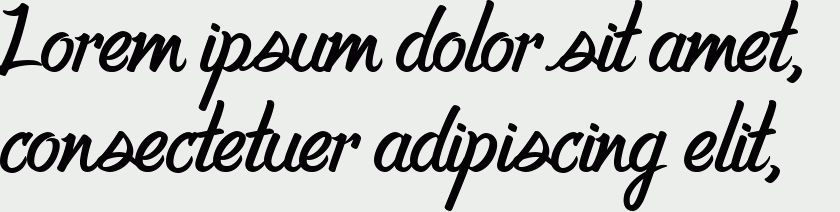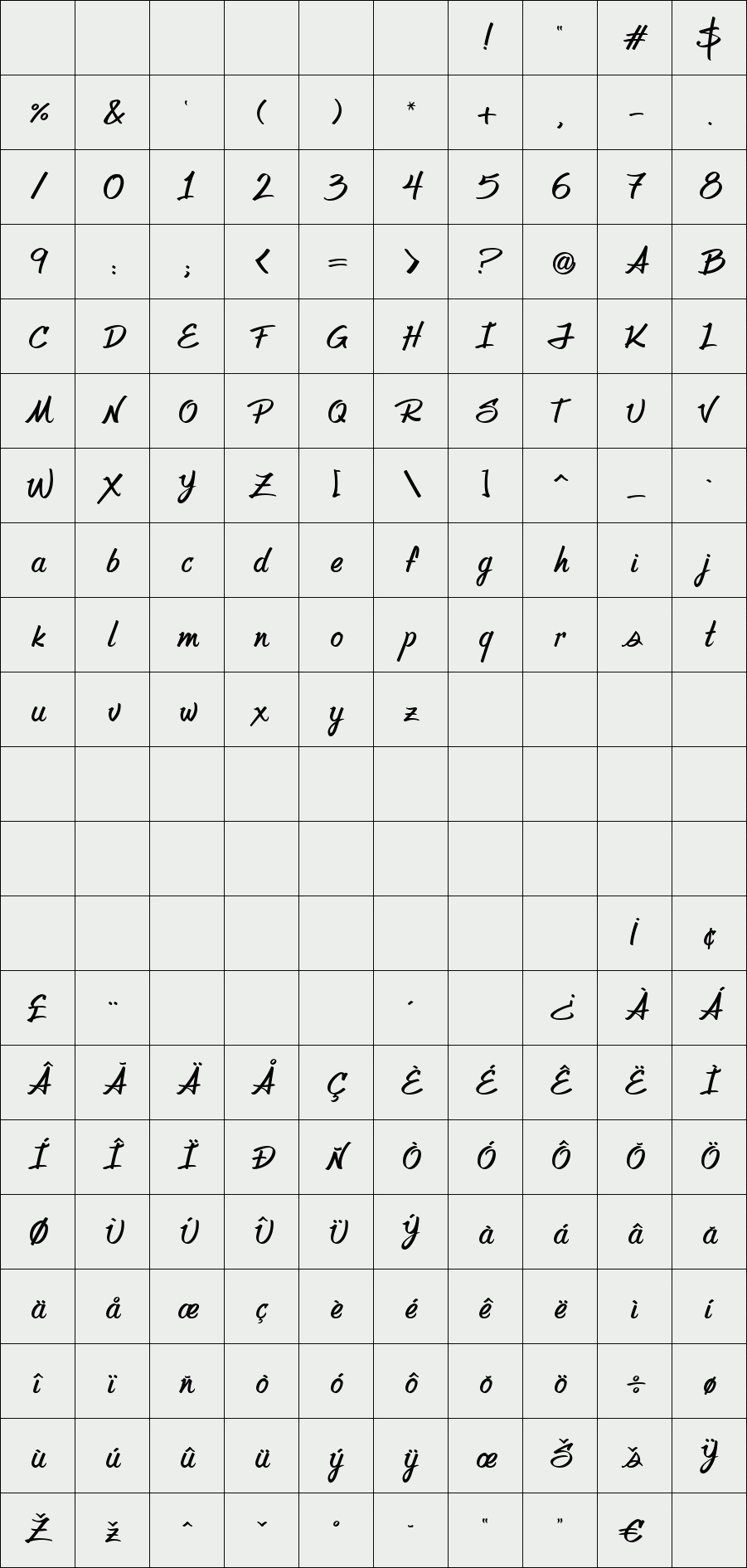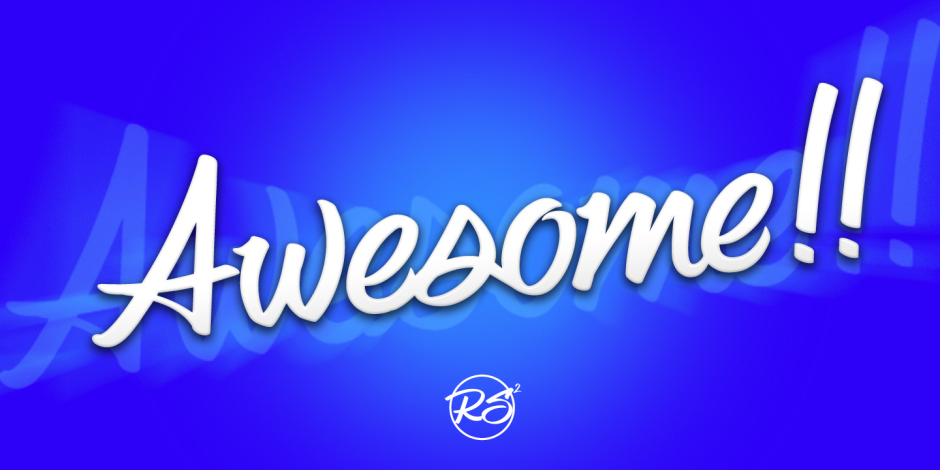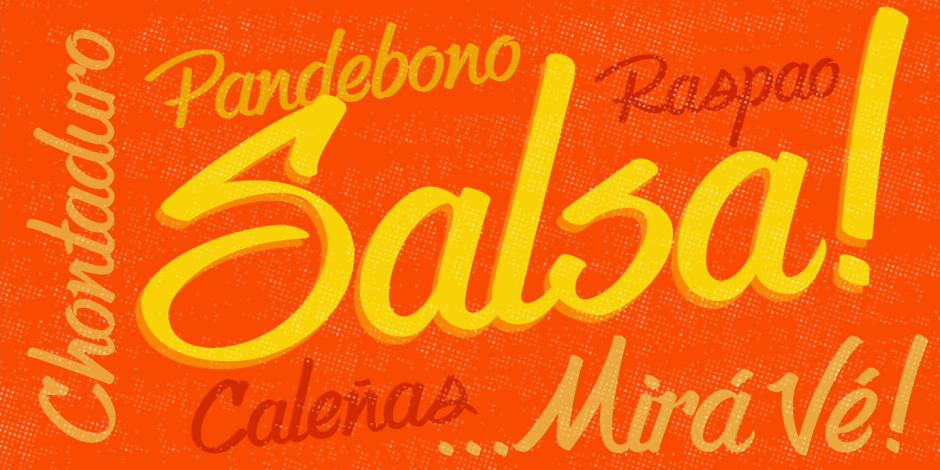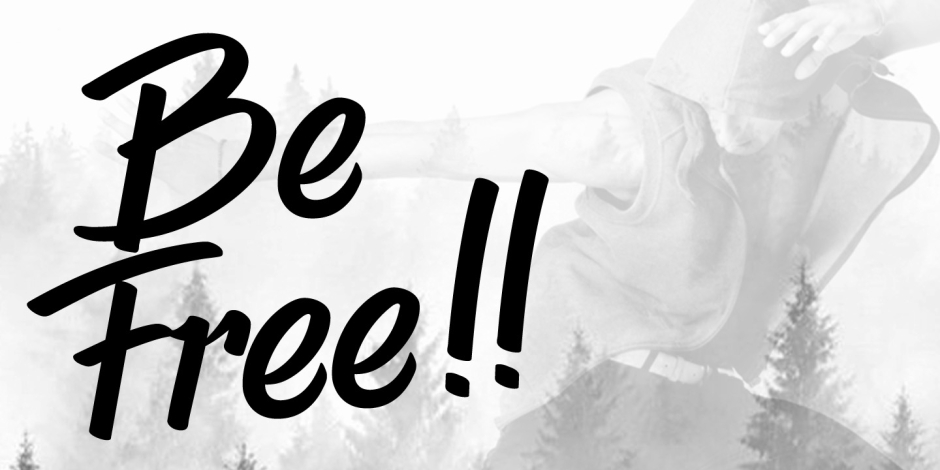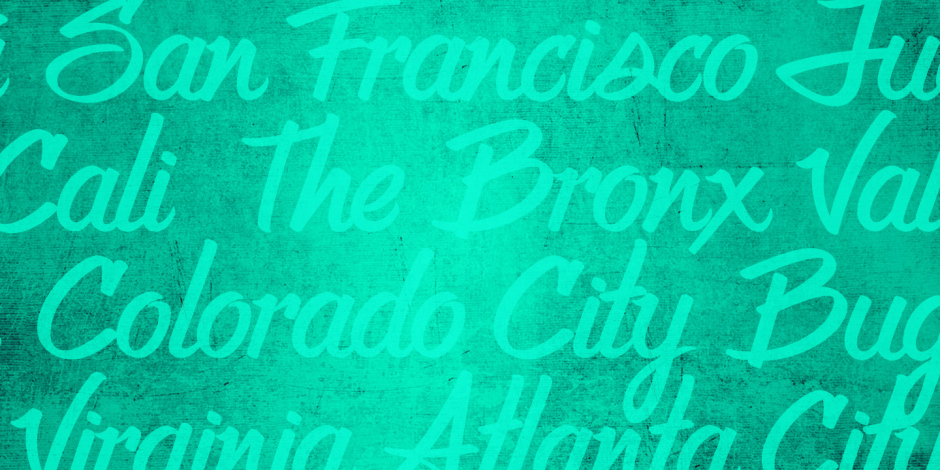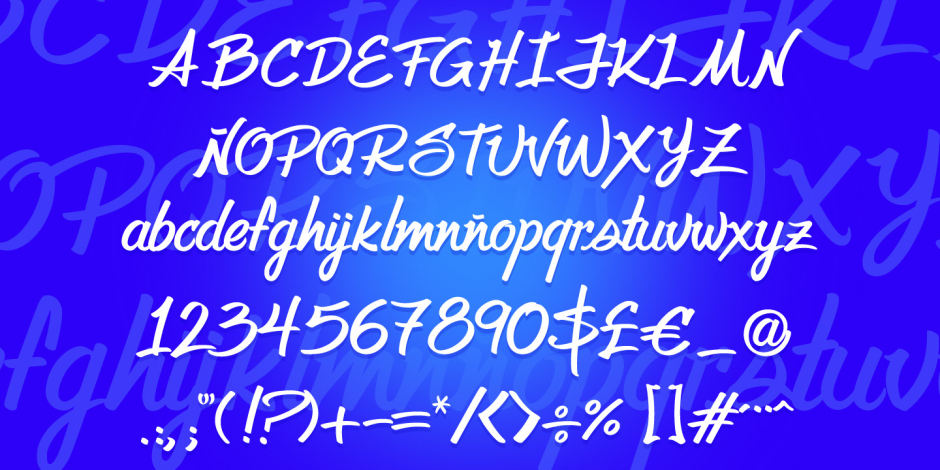
Awesome
Based on designer’s own handwriting, "Awesome" is a casual and friendly typeface inspired in the marker hand lettering, ideal for headlines, logos, magazines, posters and brand designs.
Designer: Rafael